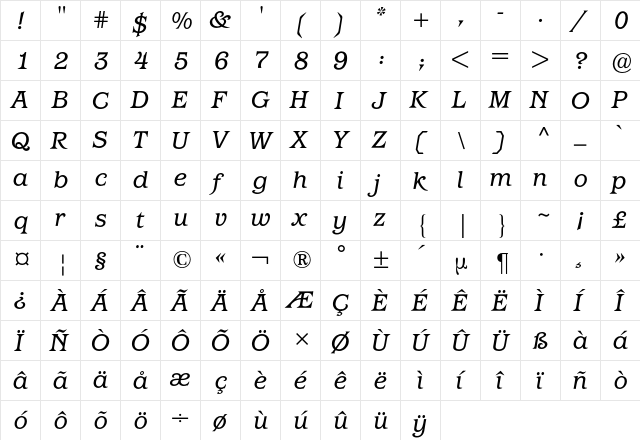
Barcelona BQ Regular
Design Context for Barcelona BQ Typeface
Barcelona BQ is a composed and adaptable typeface that performs quietly and consistently across a wide range of design contexts.